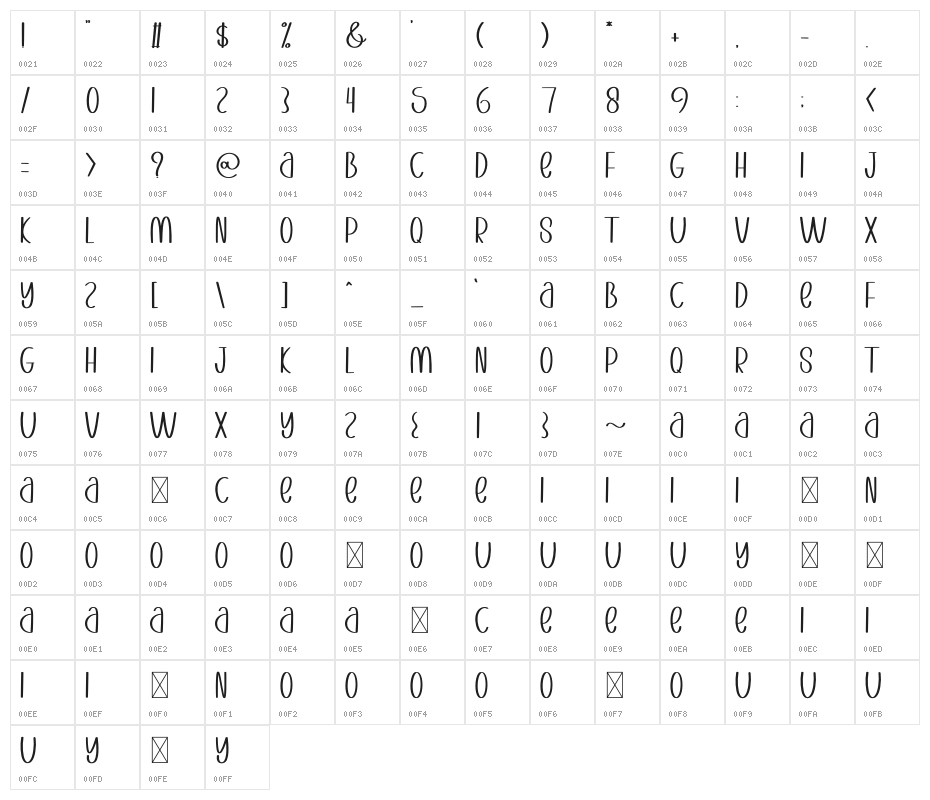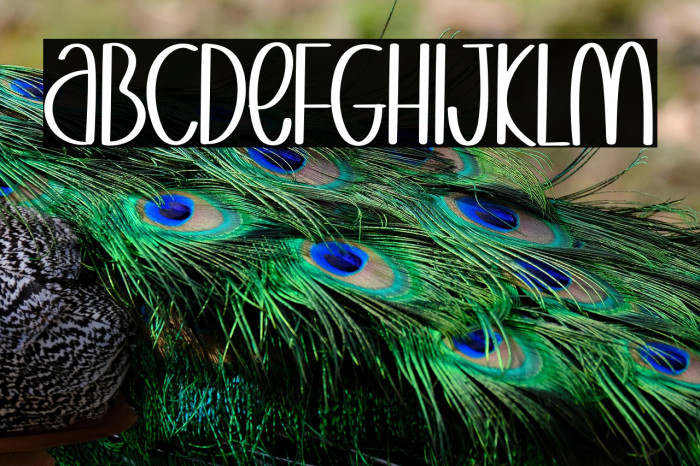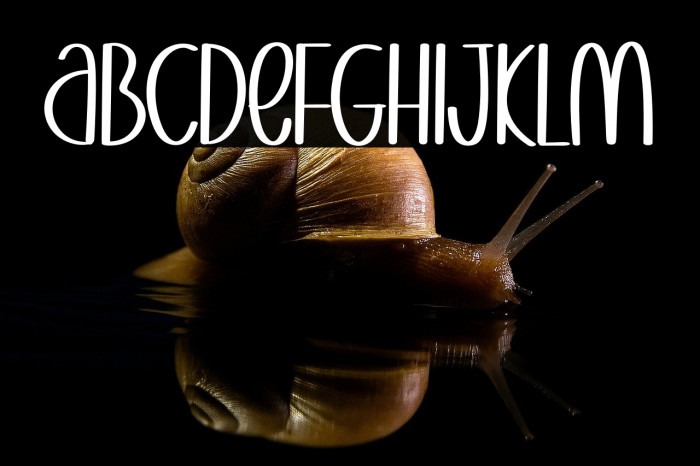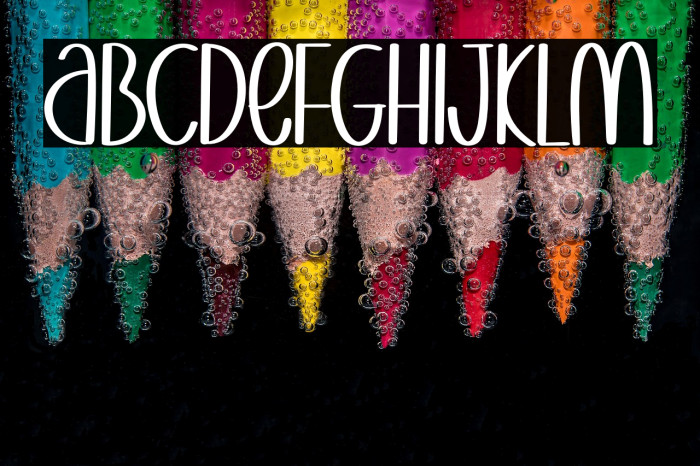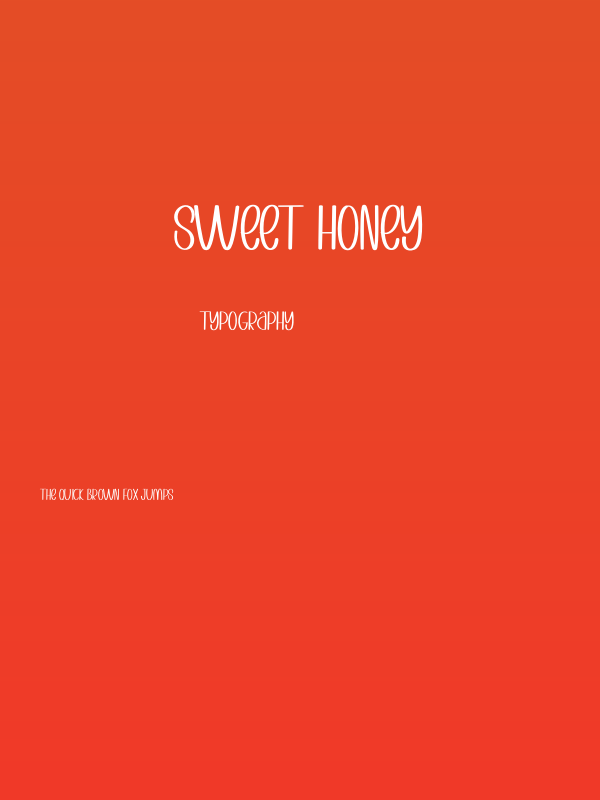
Sweet Honey Font
Sweet Honey Description
A playful, handwritten-style font with smooth curves and a casual feel. The letters are tall and narrow, giving it a unique, whimsical appearance.
| Overall Style | Casual, Whimsical |
| Proposed Projects | Greeting cards, invitations, playful branding. |